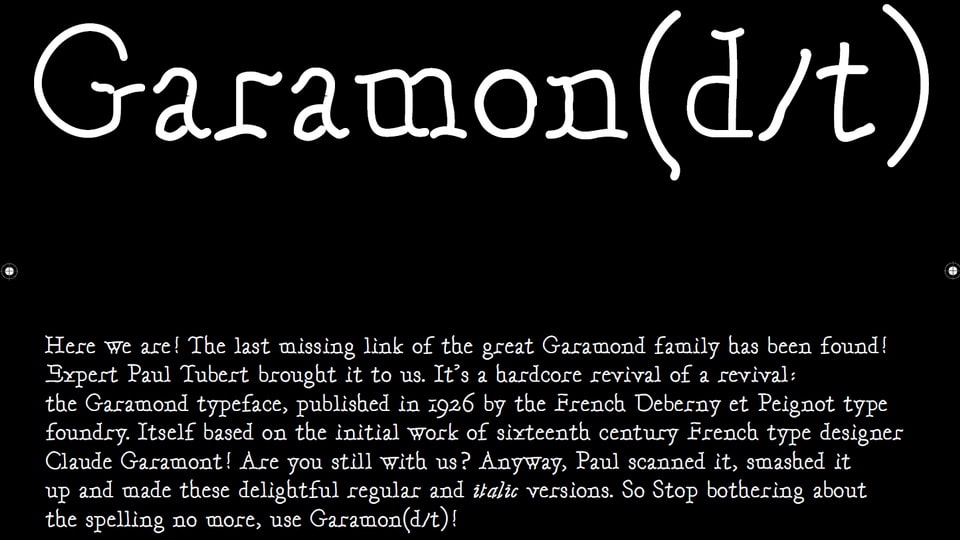
Download Garamon(d/t) font, a hardcore revival of a revival : the Garamond typeface, published in 1926 by the French Deberny et Peignot type foundry.